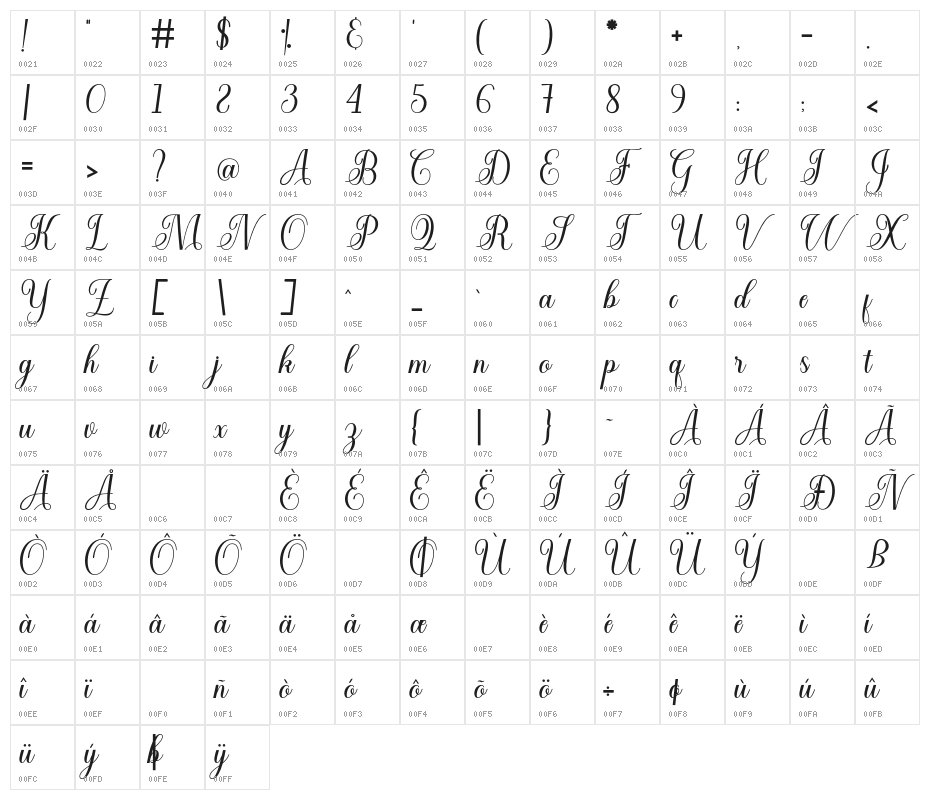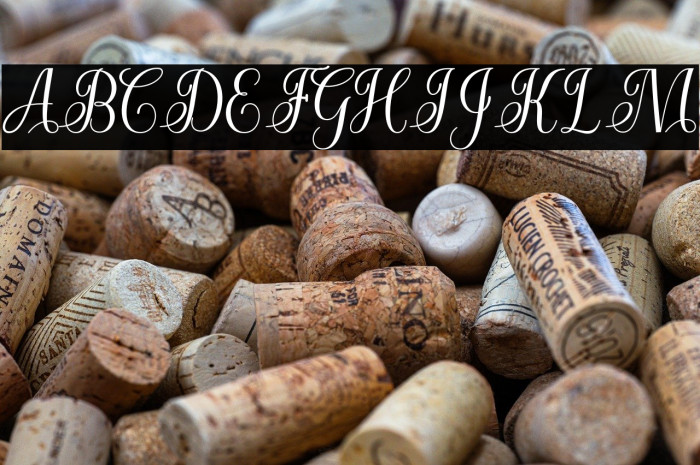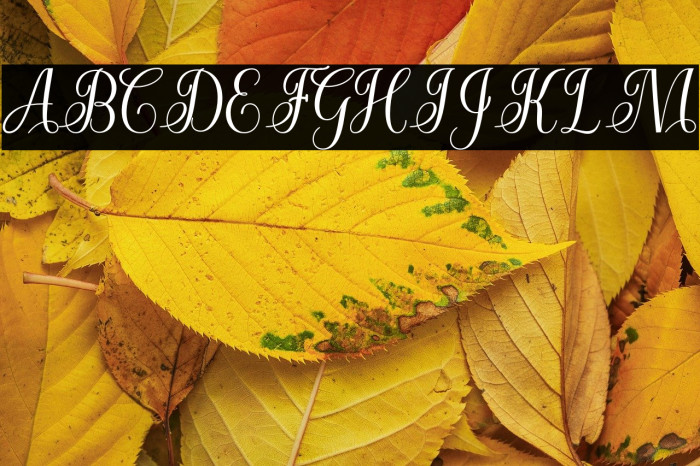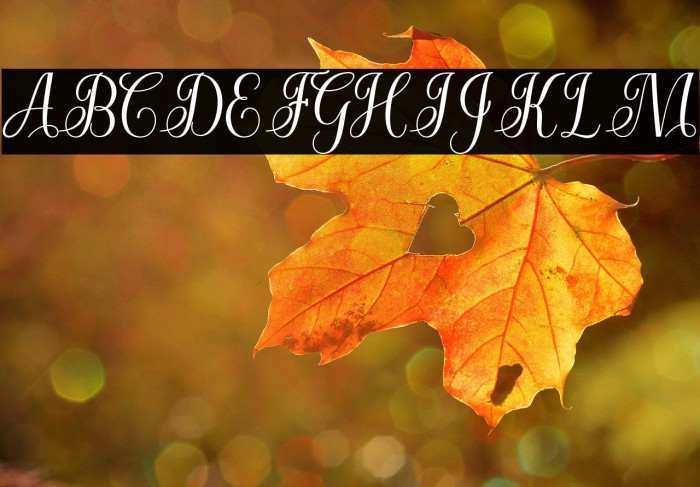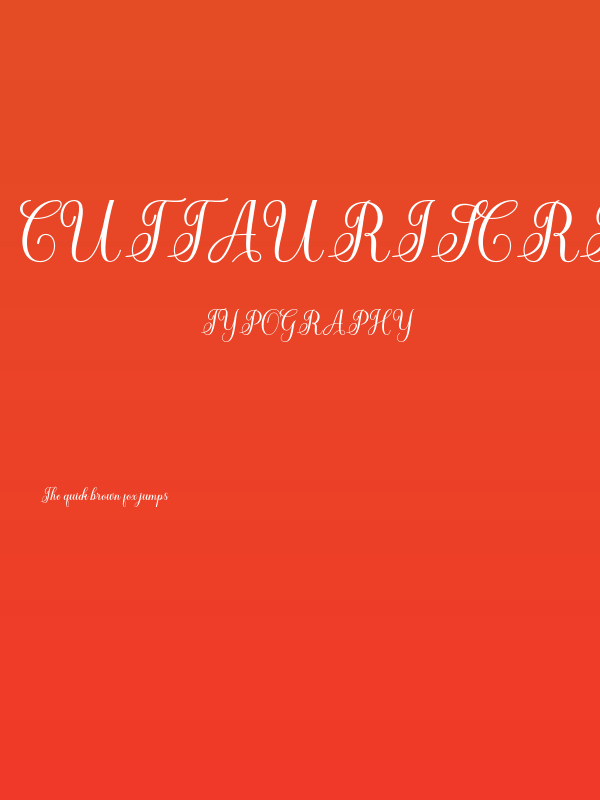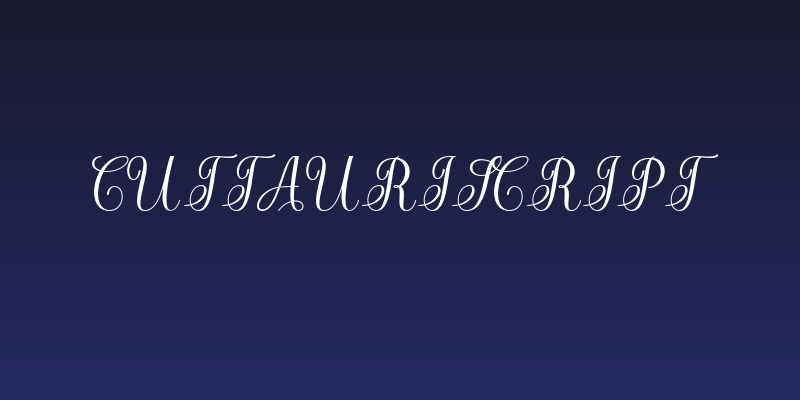
CuttauriScript Font
CuttauriScript Description
This elegant script font features a flowing, cursive style with intricate loops and swashes that give it a sophisticated and artistic appearance. The uppercase letters are particularly ornate, with graceful curves and flourishes that add a touch of luxury. The lowercase letters maintain a consistent flow, enhancing readability while retaining the decorative essence. Numbers and special characters are designed to complement the script style, ensuring a cohesive look across all elements. The font's overall design is perfect for projects that require a touch of elegance and refinement.
| Use Case | Logos, Invitations, Branding |
| Proposed Projects | Ideal for wedding invitations, luxury branding, elegant stationery, and artistic projects. |